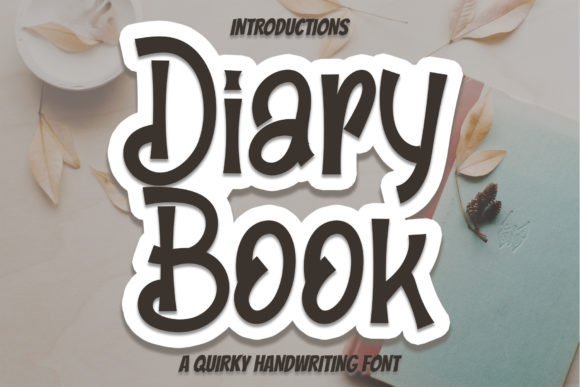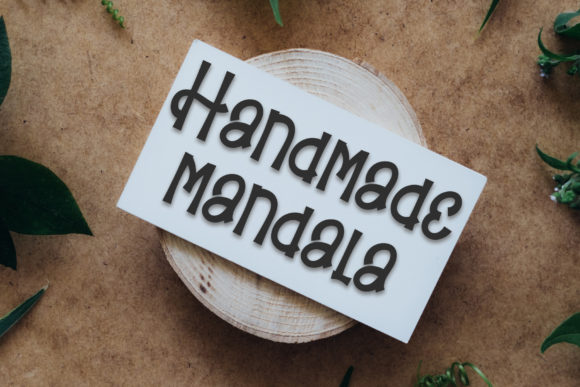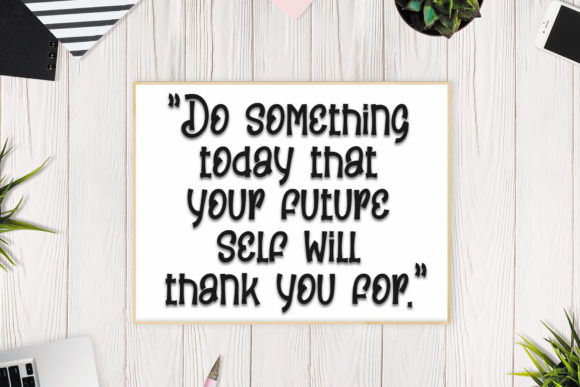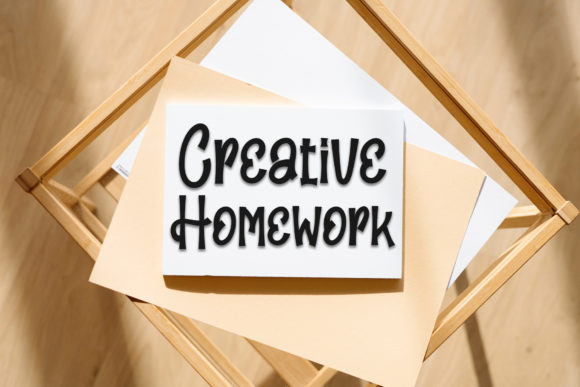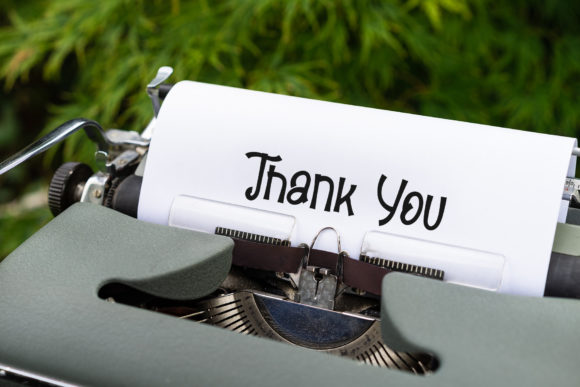
Diary Book Font
About Diary Book Font
Diary Book is a chic and quirky handwritten font that effortlessly adds a touch of uniqueness and charm to your designs, setting them apart from the ordinary. With its distinct and playful characters, Diary Book is an ideal choice for a variety of creative projects, allowing you to create eye-catching visuals that leave a lasting impression.
The font’s chic and modern style is perfect for wall displays, providing a trendy and captivating aesthetic that can instantly grab attention and enhance the atmosphere of any space. Whether it’s in a home or business setting, Diary Book’s characters lend themselves to creating visually appealing and engaging wall art.
Wedding invitations take on a fresh and personalized feel when adorned with Diary Book. The font’s quirky and handcrafted appearance adds an element of warmth and intimacy to the invitations, making them more memorable for the recipients. The font’s playful yet elegant design perfectly complements the celebratory nature of weddings.
When used on labels and packaging, Diary Book imparts a sense of creativity and originality to your products. Its quirky charm can turn a simple label into a work of art, enhancing brand identity and making products stand out on the shelves.
Photographers and content creators can benefit from Diary Book’s unique style when adding watermarks to their images. The font’s handwritten look adds a personal touch and copyright protection to your work, while its modern typography ensures that the watermark seamlessly integrates into the composition.
Invitations and stationery become more captivating with the addition of Diary Book. Whether it’s birthday invitations, party announcements, or holiday cards, the font’s quirky and chic design brings a fun and memorable element to your communication.
Diary Book’s versatility extends to a wide range of projects, making it an excellent choice for adding modern typography to your creative endeavors. Its ability to inject personality, playfulness, and sophistication into designs makes it a valuable asset for any designer looking to make their work stand out and leave a lasting impact.